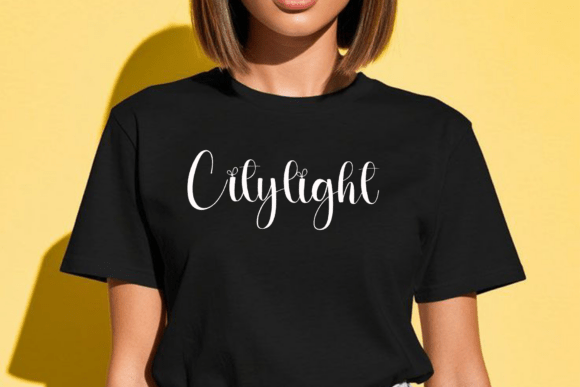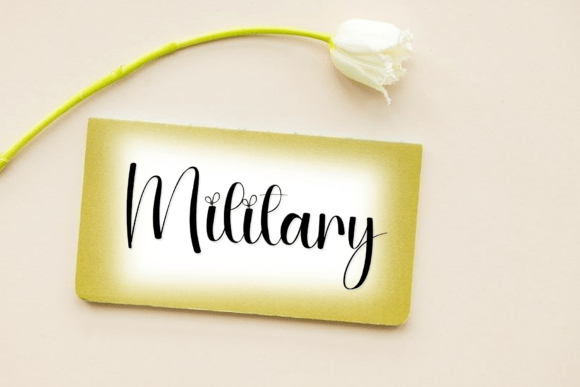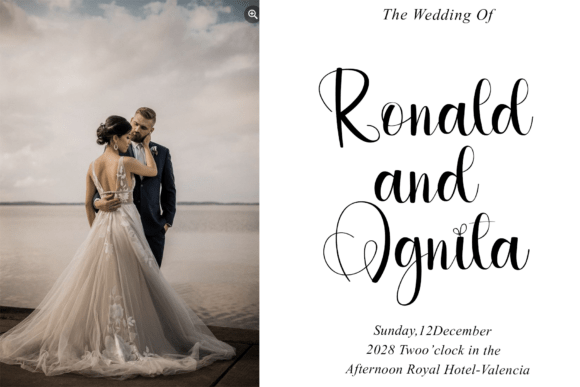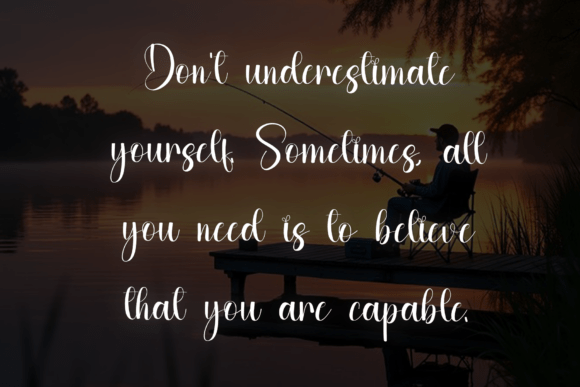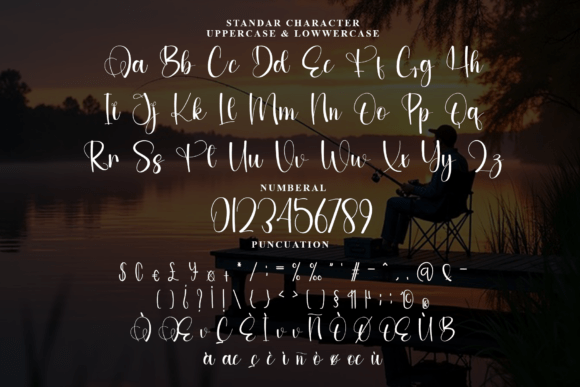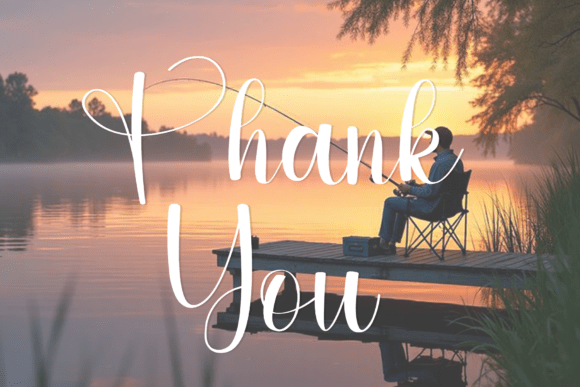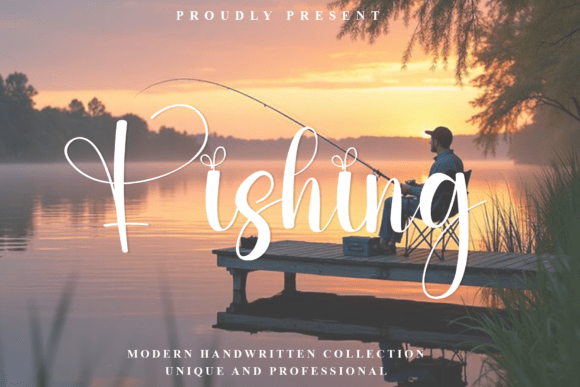
Fishing Font: Elevate Your Design with Elegance and Sophistication
Are you looking for a font that exudes luxury, sophistication, and a touch of elegance? Look no further than the Fishing Font, a beautifully flowing and elegant modern handwritten script font. With its smooth, generous curves and graceful, elongated strokes, this font is perfect for designers and crafters who want to add a touch of refinement to their projects.
The Characteristics of Fishing Font
The Fishing Font is a unique and professional typeface that boasts a range of characteristics that set it apart from other fonts. Its smooth, flowing curves give it a sophisticated, signature look that is perfect for personal branding, photography watermarks, luxury wedding stationery, editorial design, and any project that requires a sweeping, authentic, and naturally luxurious touch.
Some of the key features of the Fishing Font include:
- Smooth, generous curves that give the font a luxurious feel
- Graceful, elongated strokes that add to the font’s elegance
- A sophisticated, signature look that is perfect for high-end designs
- A unique and professional typeface that will elevate your designs
Uses for Fishing Font
The Fishing Font is a versatile typeface that can be used for a wide range of design projects. Some of the most popular uses for this font include:
- Personal branding: Add a touch of elegance to your business cards, letterheads, and other marketing materials
- Photography watermarks: Give your photos a sophisticated, professional look with the Fishing Font
- Luxury wedding stationery: Make your wedding invitations, programs, and other stationery truly unforgettable with this beautiful font
- Editorial design: Use the Fishing Font to add a touch of sophistication to your magazine articles, blog posts, and other written content
- Any project that requires a sweeping, authentic, and naturally luxurious touch: From packaging design to advertising, the Fishing Font is the perfect choice for any project that needs a touch of elegance
Why Choose Fishing Font?
With so many fonts to choose from, why should you choose the Fishing Font? Here are just a few reasons why this font stands out from the crowd:
- Unique and professional: The Fishing Font is a one-of-a-kind typeface that will elevate your designs and set you apart from the competition
- Elegant and sophisticated: This font exudes luxury and refinement, making it perfect for high-end designs
- Versatile: The Fishing Font can be used for a wide range of design projects, from personal branding to editorial design
- Easy to read: Despite its elegant, cursive style, the Fishing Font is easy to read and understand
Tips for Using Fishing Font
To get the most out of the Fishing Font, here are a few tips to keep in mind:
- Use it sparingly: While the Fishing Font is beautiful, it can be overwhelming if used too much. Use it sparingly to add a touch of elegance to your designs
- Pair it with a sans-serif font: For a striking contrast, pair the Fishing Font with a sans-serif font like Arial or Helvetica
- Experiment with different colors: The Fishing Font looks stunning in a range of colors, from metallic gold to deep navy blue
- Pay attention to font size: To ensure that the Fishing Font is legible, make sure to use a font size that is large enough to read comfortably
In conclusion, the Fishing Font is a beautifully flowing and elegant modern handwritten script font that is perfect for designers and crafters who want to add a touch of luxury and sophistication to their projects. With its smooth, generous curves and graceful, elongated strokes, this font is sure to elevate your designs and set you apart from the competition. Whether you’re looking to create personal branding materials, photography watermarks, luxury wedding stationery, or editorial design, the Fishing Font is the perfect choice.